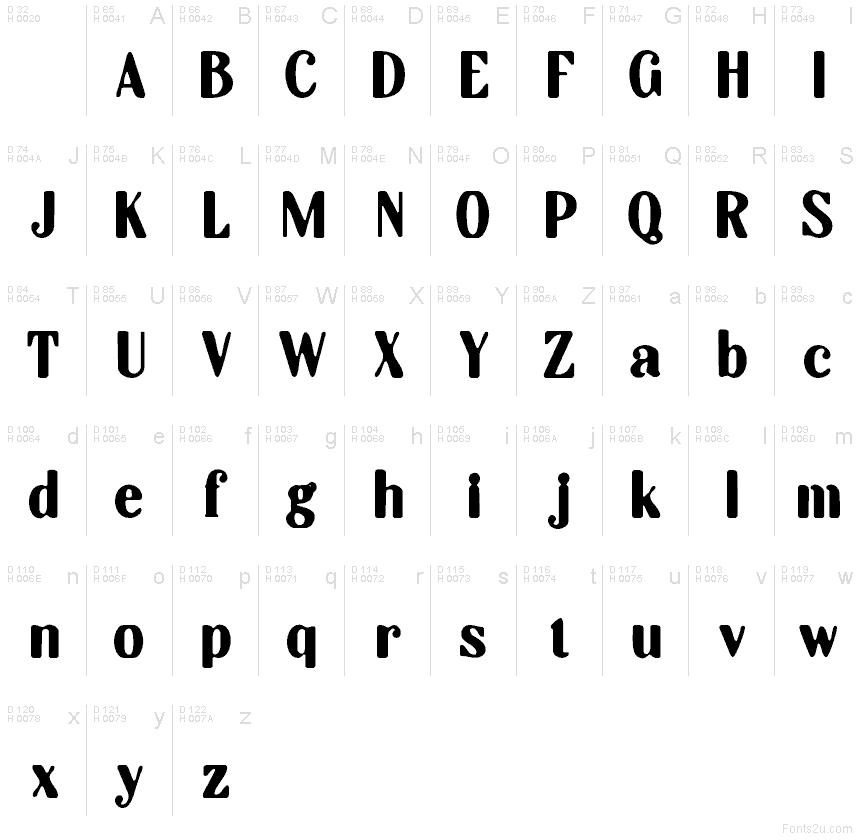
CSLobeliaDrawn-Regular Demo
CS Lobelia Drawn font by Craft Supply Co. is a free retro serif font. Built within the CS Lobelia family, it leans into plush ball terminals, scooped serifs, and a soft, inky edge that feels slightly hand-drawn. The letterforms are chunky yet graceful, with generous curves and tight rhythm that give headlines immediate presence without shouting. It’s that rare blend of nostalgic warmth and sturdy clarity.
Using CS Lobelia Drawn, you’ll get standout results on vintage branding, posters, cafe menus, boutique packaging, album covers, editorial drop caps, and social graphics. The weight holds texture beautifully at large sizes; tighten tracking a touch for extra snap. For balance, pair this free font with a crisp, unobtrusive grotesque sans for body copy to let those bulbous serifs and rounded counters shine.